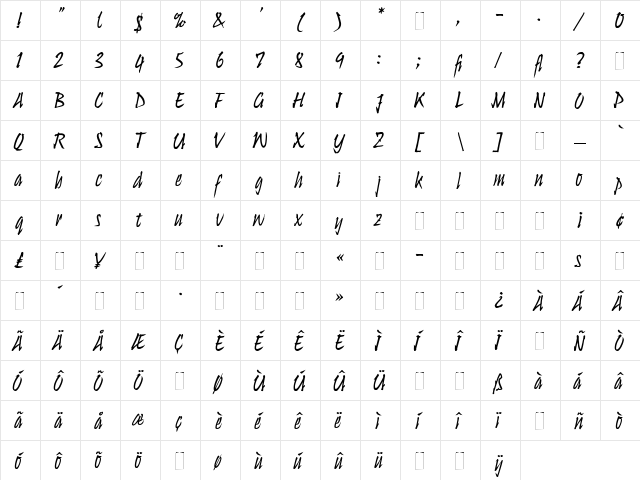
Ulysses LT Regular
| Foundry | Linotype Library GmbH |
Design Context for Ulysses LT Typeface
Ulysses LT takes a measured approach to typography — its balanced proportions and neutral character make it a reliable workhorse for both digital and print work. Its slender proportions lend an understated elegance to any composition.